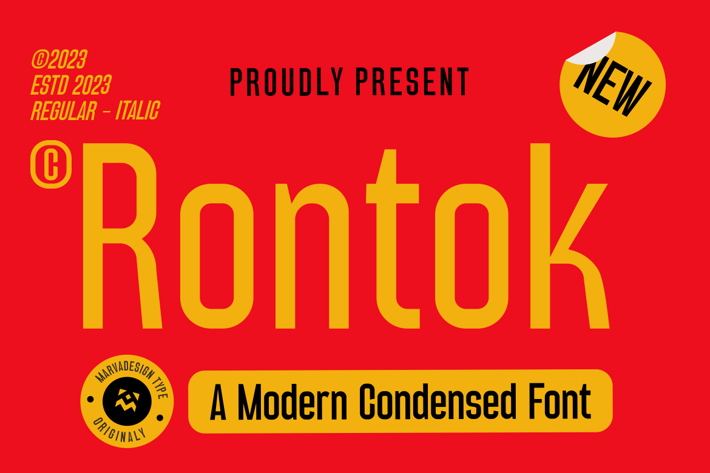
Rontok - A Modern Sans Condensed Font
Introducing our new product Rontok Font - A Modern Sans Condensed Font
Rontok Font - A Modern Sans Condensed Font is a bold and authentic display font. The font is suitable for any branding project like logo, Template Design, Product and many more. outstanding in a wide range of contexts.